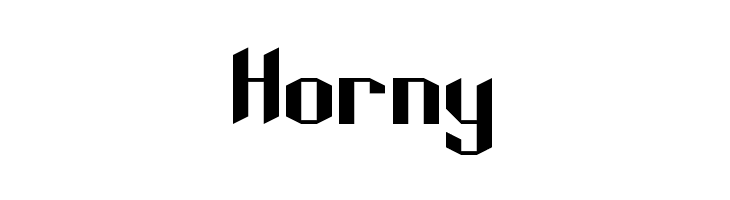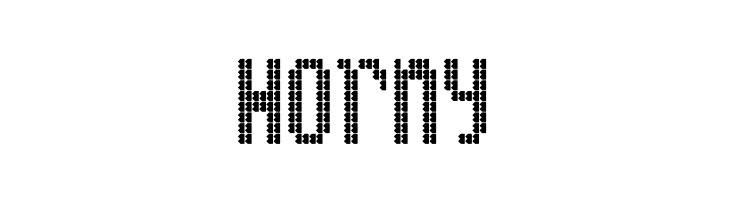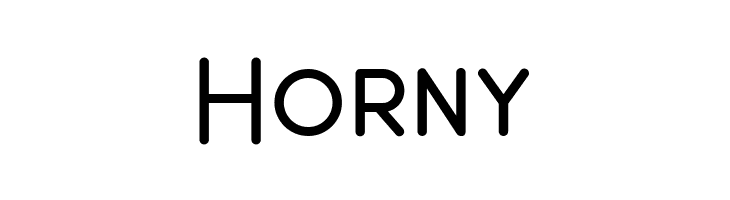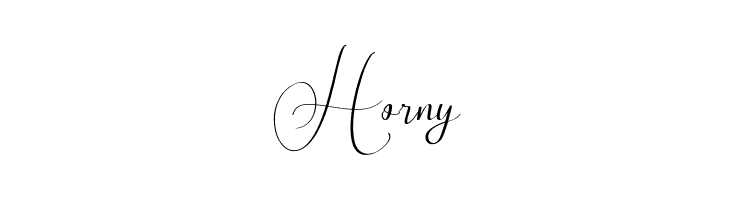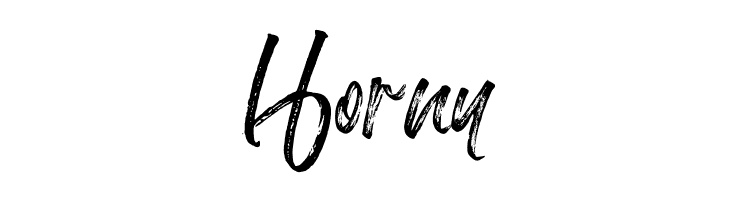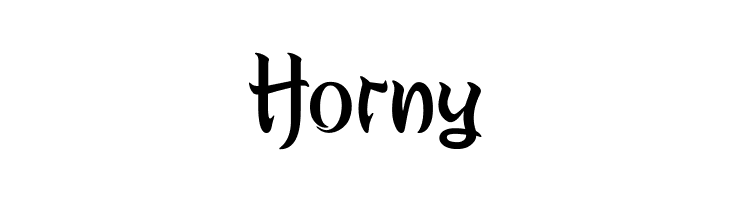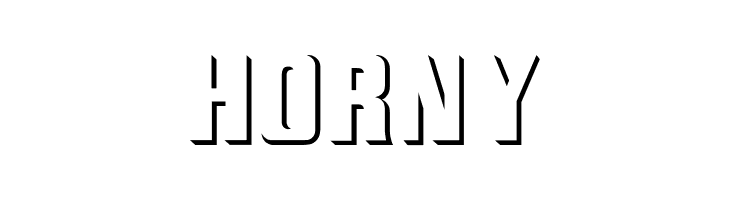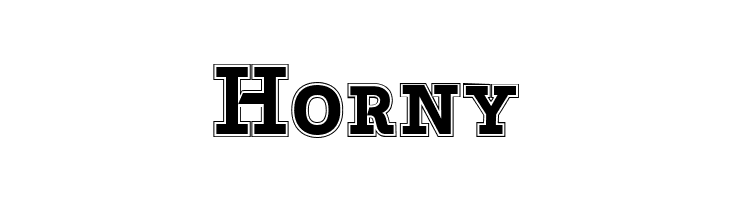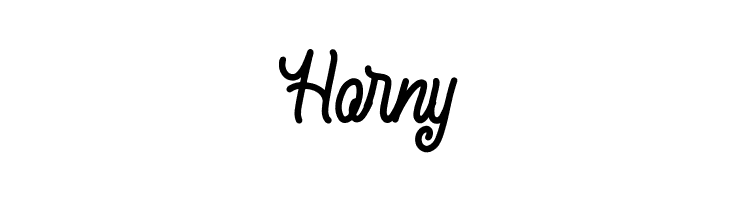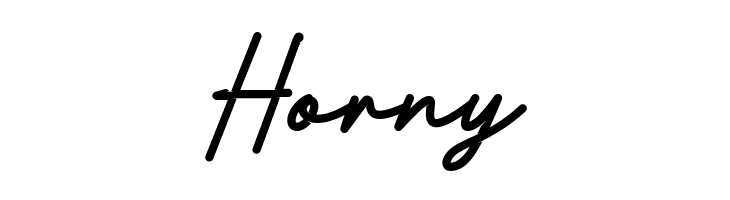
( Fonts by Chris Vile )
A playful, handwritten font with bold, rounded characters.
A lively and expressive handwritten font with fluid strokes and medium contrast.
Casual handwritten script with energetic, flowing strokes.
A modern, cursive font with elegant, flowing lines and a handwritten feel.
An elegant script font with intricate loops and swirls, perfect for formal designs.
A dynamic and energetic script font with fluid, flowing letterforms.
( Font by Jayvee D. Enaguas - grandchaos9000.deviantart.com )
A bold, italic font with a modern and dynamic style.
( Font by Jayvee D. Enaguas - grandchaos9000.deviantart.com )
A playful, bold font with a hand-drawn, rounded style.
A modern, elegant script font with bold, flowing lines and a handwritten style.
A modern, rounded sans-serif font with clean lines and uniform stroke width.
( Fonts by Daniel Gauthier )
A dot matrix style font with a retro digital display look.
A flowing, cursive script font with elegant loops and swirls.
A bold, playful script font with a handwritten feel.
A bold, brush-style font with dynamic, expressive strokes.
A bold, handwritten font with dynamic strokes and a modern, artistic flair.
A lively and dynamic script font with flowing, connected letterforms.
A bold, playful handwritten font with a casual and friendly style.
A playful, bold handwritten font with a modern twist.
A bold, angular font with a dramatic, gothic-inspired style.
( Fonts by Yorlmar Campos - www.ycampos.com )
A bold, rounded font with a playful and friendly appearance.
( Pixel Kitchen )
A bold, geometric font with sharp angles and a modern aesthetic.
A bold, calligraphic font with dramatic curves and sharp edges.
A bold, geometric typeface with consistent stroke width and tight spacing.
( Fonts by Riki )
A fluid and elegant script font with a sophisticated handwritten style.
( Fonts by Fernando Carvente - serifdechocolate.wordpress.com )
A bold, outlined collegiate-style font with a strong, three-dimensional effect.
A bold, distressed font with a grunge texture and high contrast.
( Fonts by a Clement Nicolle - www.stereo-type.fr . Personal-use only. For commercial use please contact owner. )
A bold, textured font with a brush stroke effect, ideal for impactful designs.
A playful, handwritten-style font with consistent stroke thickness and a casual feel.
A playful, hand-drawn style font with whimsical, irregular strokes.
( Fonts by Origin Type )
A playful, bold font with rounded edges and a bubbly appearance.